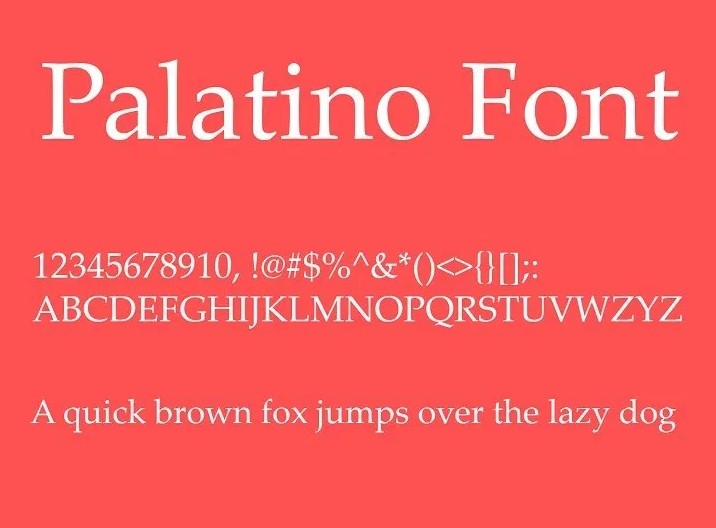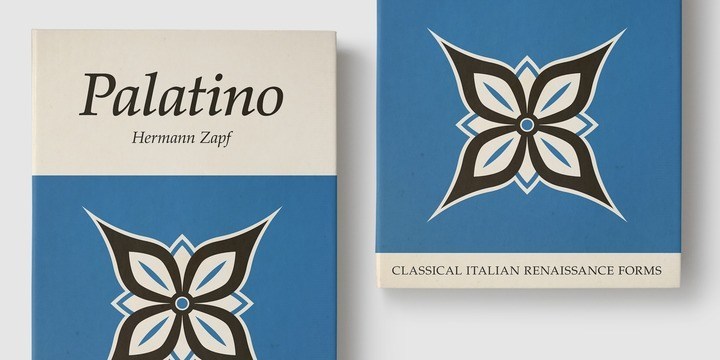
Palatino Font
Palatino Font is derived from the Georgia font. This typeface shares a lot of similarities with the Garamond and latex font and it is for free. This font has been attractively not unusual thru using a pointer with a tinny brush on acrylic newspaper. Its appearances are amazing in dark paint solar shades.